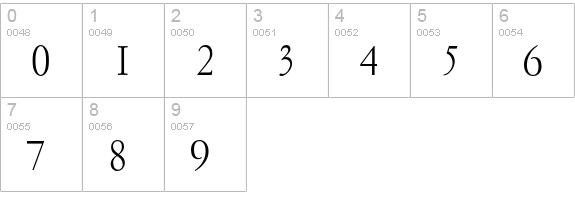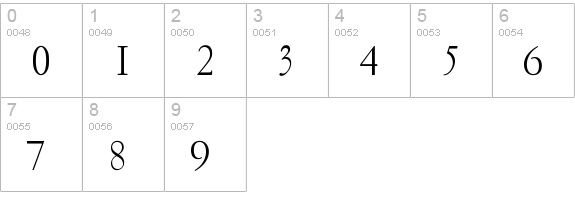
Garemond-Xlight font is a sleek and modern typeface designed to bring a touch of elegance to your projects. With its clean lines and sophisticated style, this font is perfect for a wide range of design applications, from branding to editorial design. The Garemond-Xlight font exudes a sense of sophistication and professionalism, making it an ideal choice for those looking to make a statement with their typography. One of the best things about the Garemond-Xlight font is that it is available for free download at FontsMarket.com. This means that you can easily add this stunning typeface to your font library without having to spend a dime. Whether you are a professional designer or a hobbyist looking to enhance your projects, the Garemond-Xlight font is a versatile and stylish option that will elevate your designs to the next level. Download it today and see for yourself the impact this font can make on your creative work.